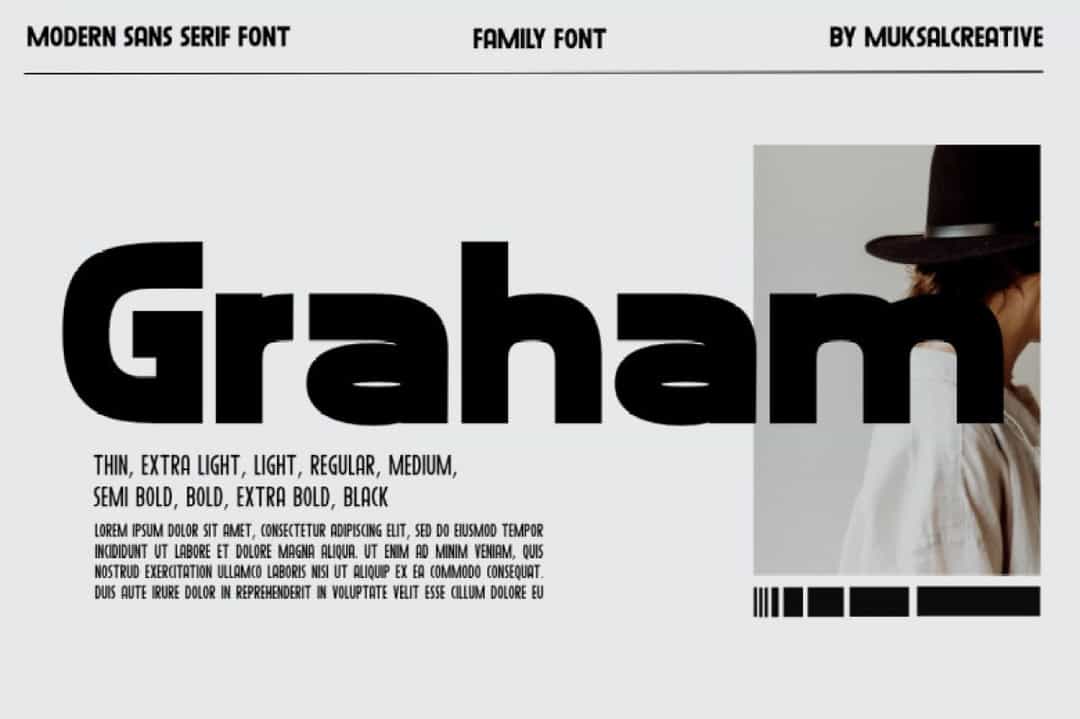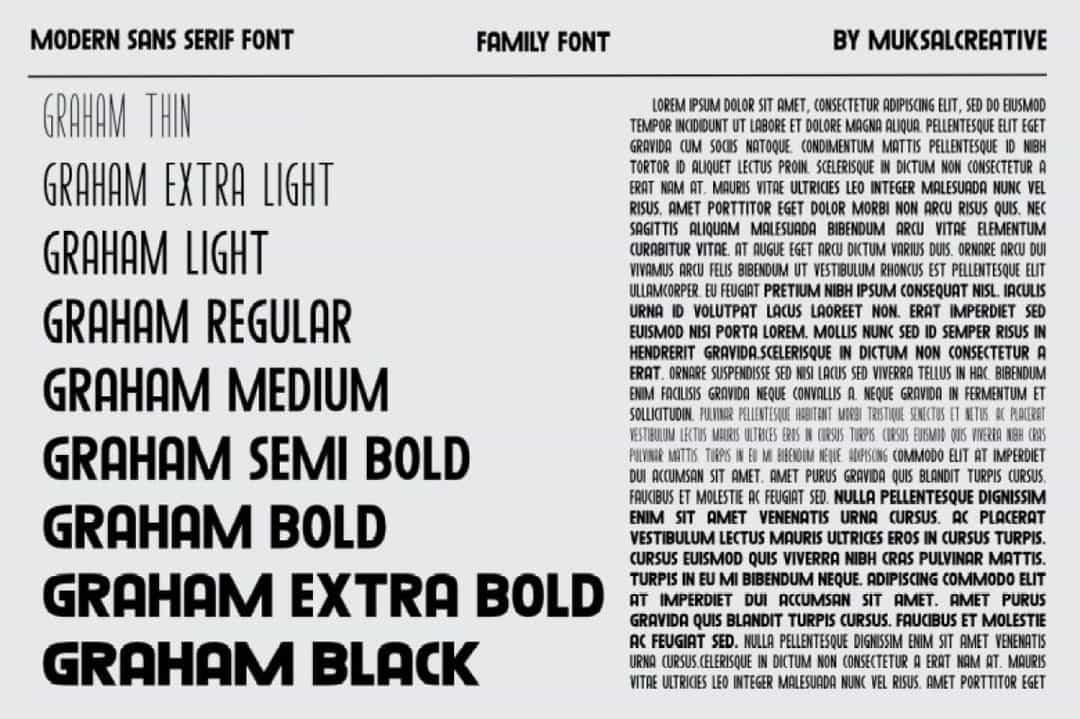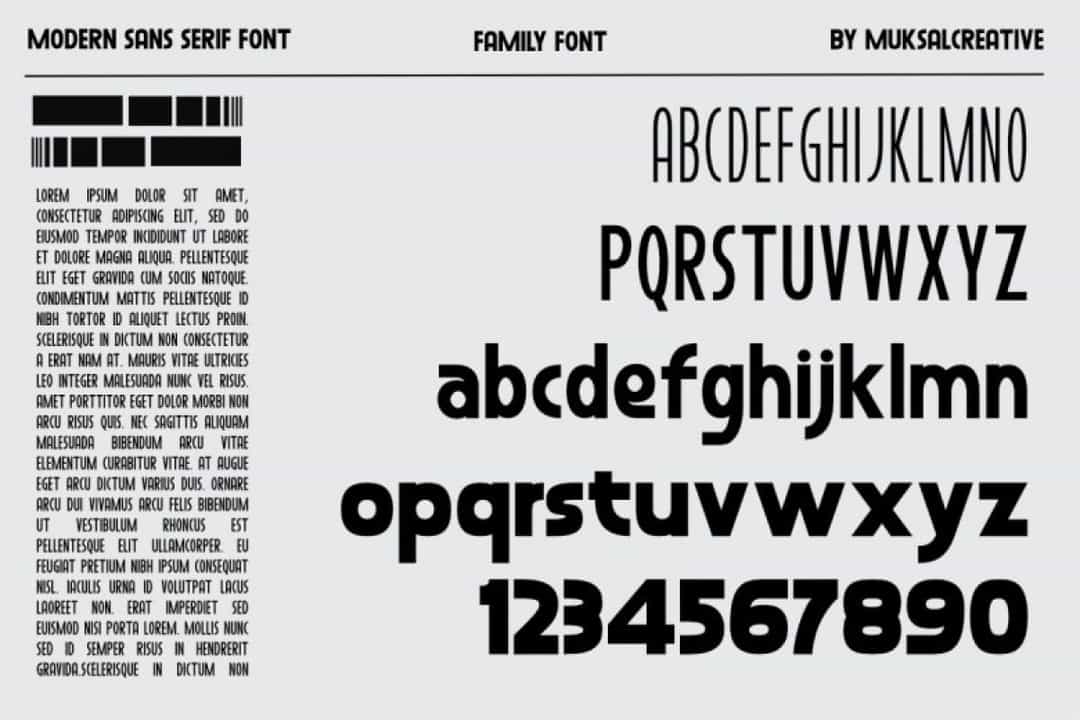
Discover Graham Black Font, part of the Sans Serif collection—a versatile and unique font perfect for adding a personal touch to your projects. Download it for free and enjoy crafting designs with style, from invitations to social media posts. This font is available exclusively for personal use, giving you the freedom to create without limits. Unlock your creativity with Graham Black Font today!
Graham is an elegant and simple sans serif font that was created for the contemporary use. Graham has 9 different styles ranging from the thin style which is the smallest to the black style which is the largest. This font is tremendously suitable for any kind of design that encompasses fashion logos that need a contemporary and stylish touch and other uses including branding, posters, websites, and print.